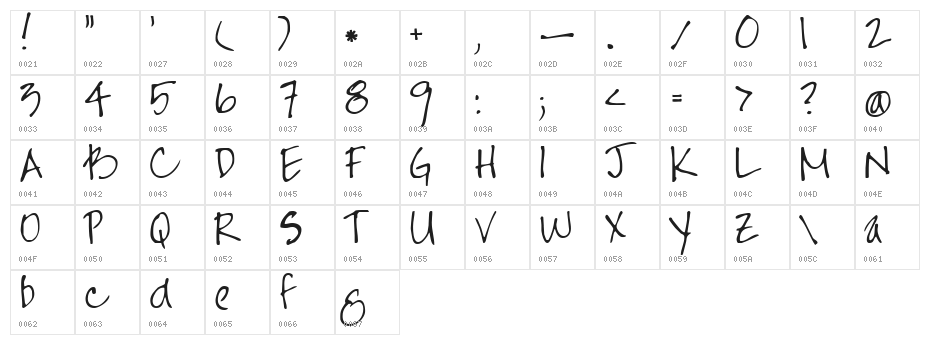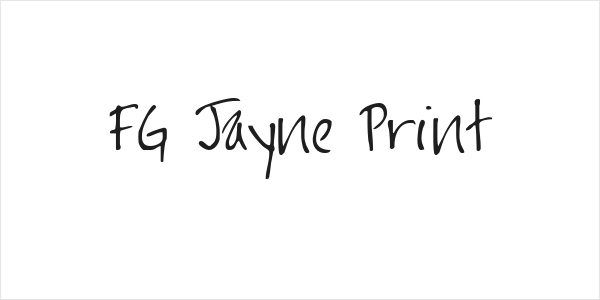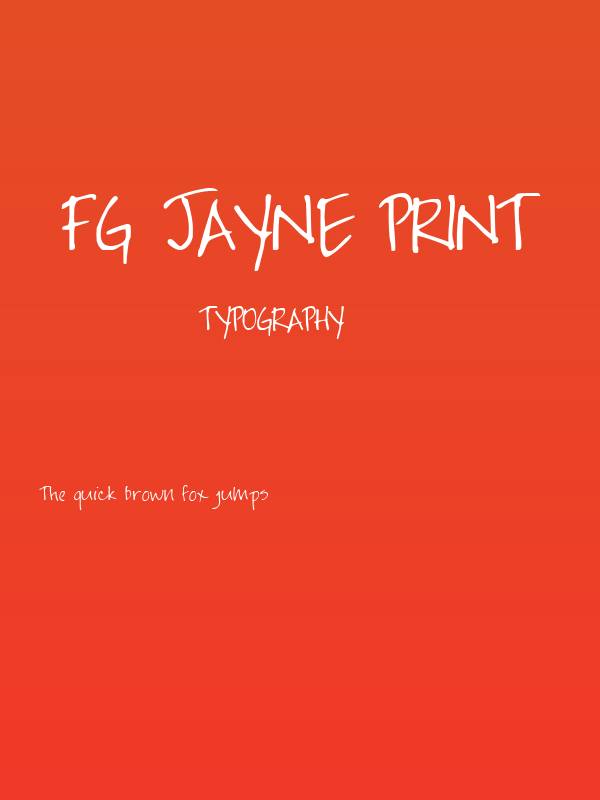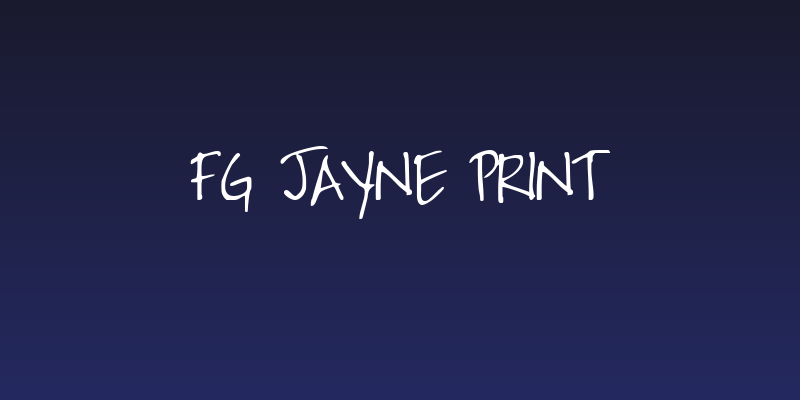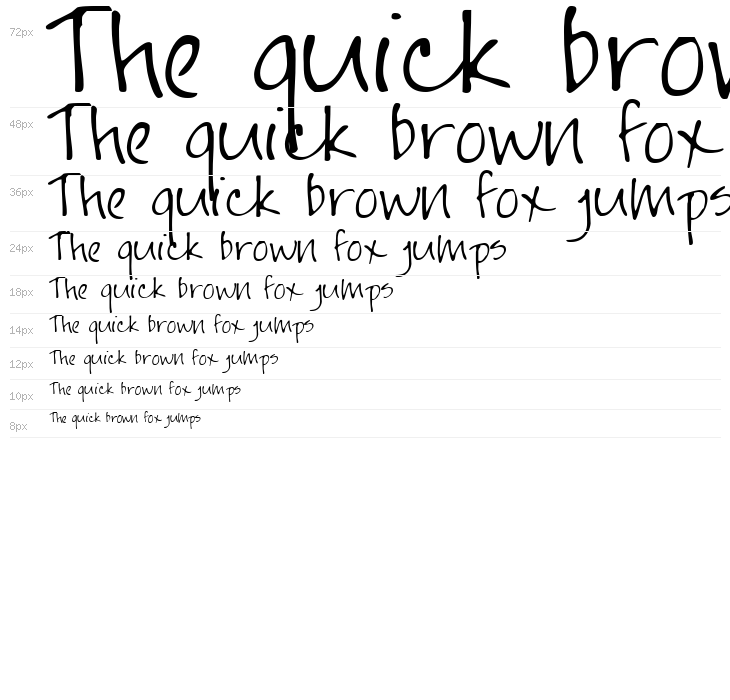
FG Jayne Print Font
FG Jayne Print Description
This font features a playful and casual handwritten style, characterized by its fluid and dynamic strokes. The letters have an organic feel, with varying thickness that adds a sense of movement and personality. The uppercase letters are bold and slightly irregular, while the lowercase letters maintain a consistent flow, enhancing readability. The numbers and special characters follow the same lively and informal aesthetic, making the font suitable for creative and informal projects. Its unique style can add a personal touch to any design, making it stand out with its distinct charm.
| Proposed Projects | Ideal for greeting cards, invitations, personal branding, and creative projects that require a personal touch. |